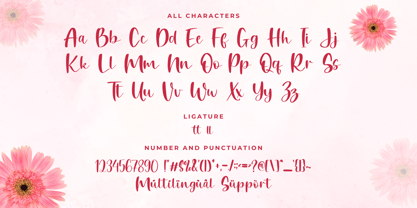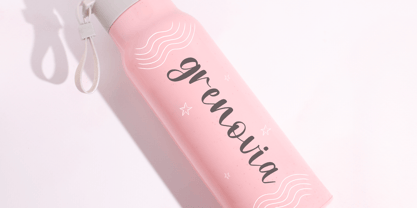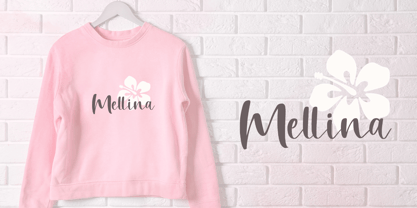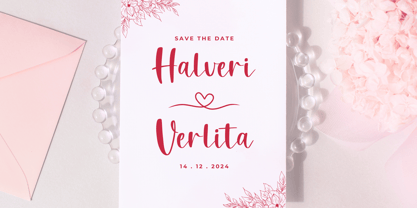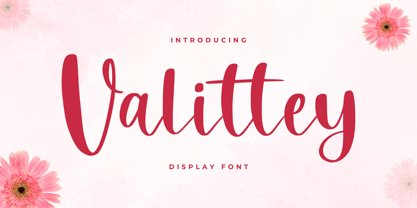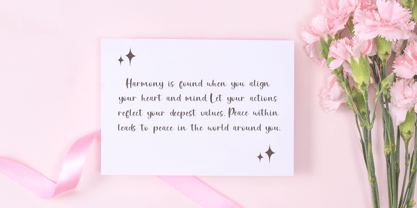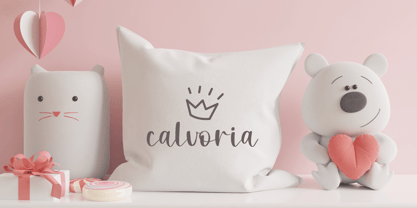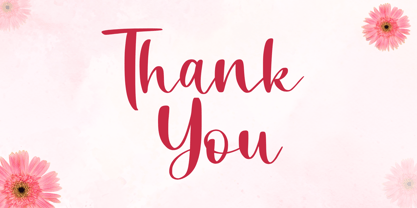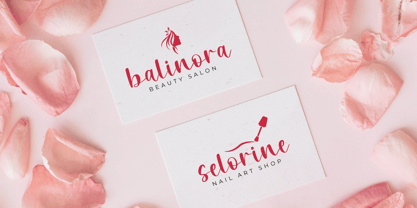
Valittey
von Sakha Design
Die Schriftfamilie Valittey wurde von Alif Ryan Zulfikar entworfen und von Sakha Design veröffentlicht. Valittey enthält 2 Stile und Familienpaketoptionen. Mehr über diese Familie
Valittey is a sophisticated display font with bold characters and elegant curves. Perfect for branding, posters, and headlines, its timeless design combines modern style and classic charm, creating a striking visual impact for any creative project.
Designer: Alif Ryan Zulfikar
Foundry: Sakha Design